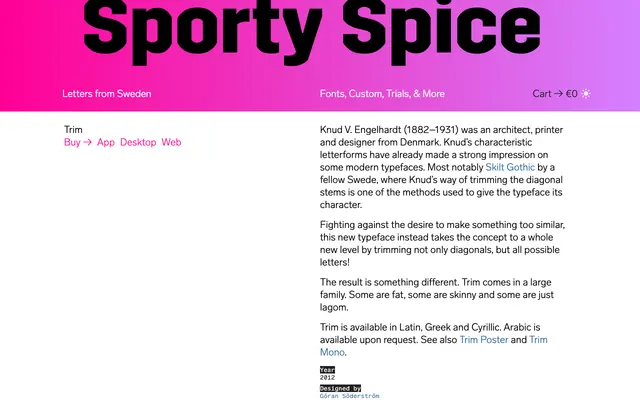
Trim
Letters from Sweden · Göran Söderström, Panos Haratzopoulos (Greek) · 2012
A geometric sans by Göran Söderström that applies systematic stem-trimming across every possible letterform, inspired by the work of Danish designer Knud V. Engelhardt.
Released in 2012 by Letters from Sweden, Trim extends a design principle drawn from Engelhardt's trimmed diagonal stems to cover all letters in the family, not just diagonals. The result is a large, wide-ranging family from very light to black weights, with coverage across Latin, Cyrillic and Greek scripts. Companion families Trim Poster and Trim Mono extend its range for display and monospaced applications.
Trim is a geometric sans-serif distinguished by its trimmed diagonal and curved stems, a concept derived from the work of Danish designer Knud V. Engelhardt. The systematic cutting of terminals across all letterforms gives it a distinctive angular, constructed quality.